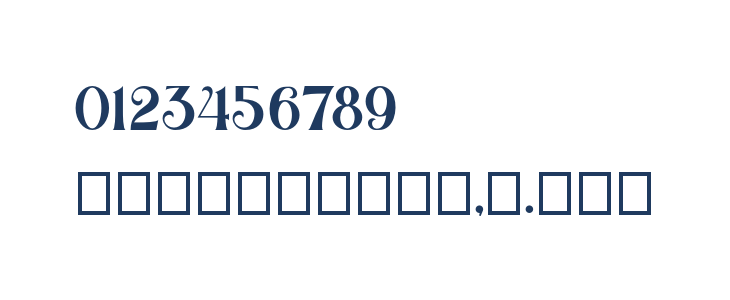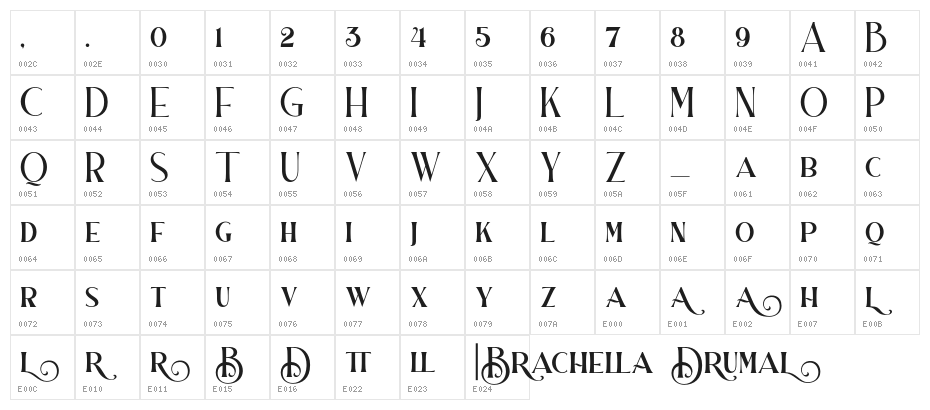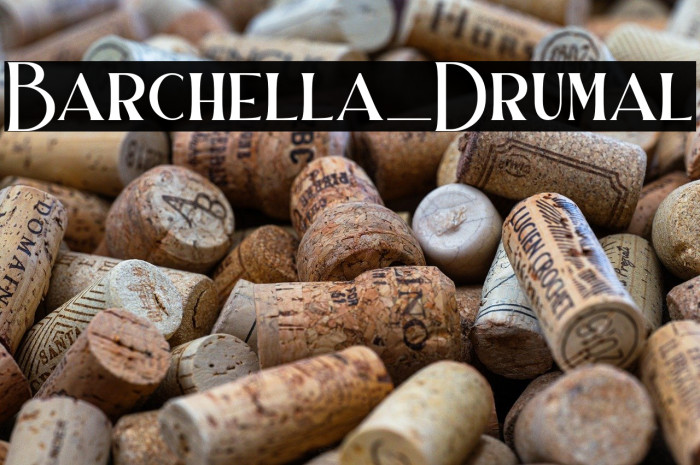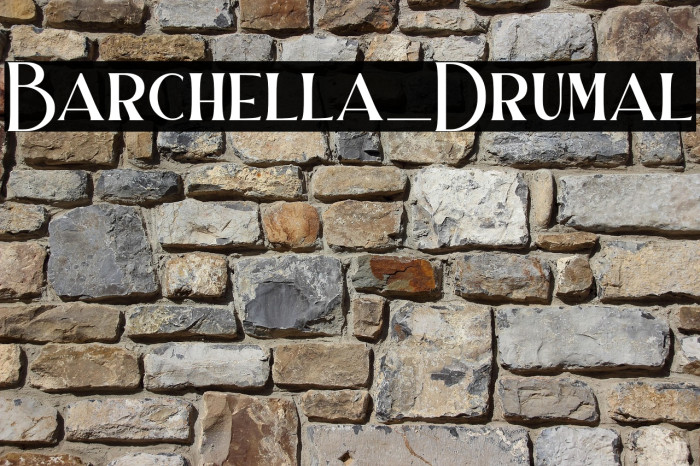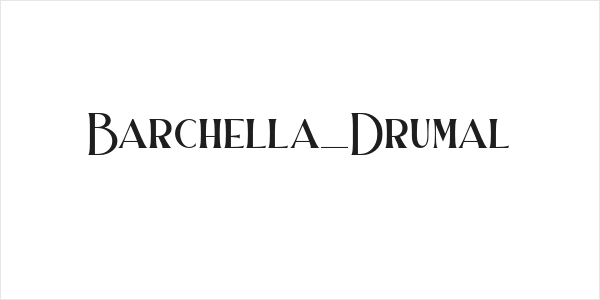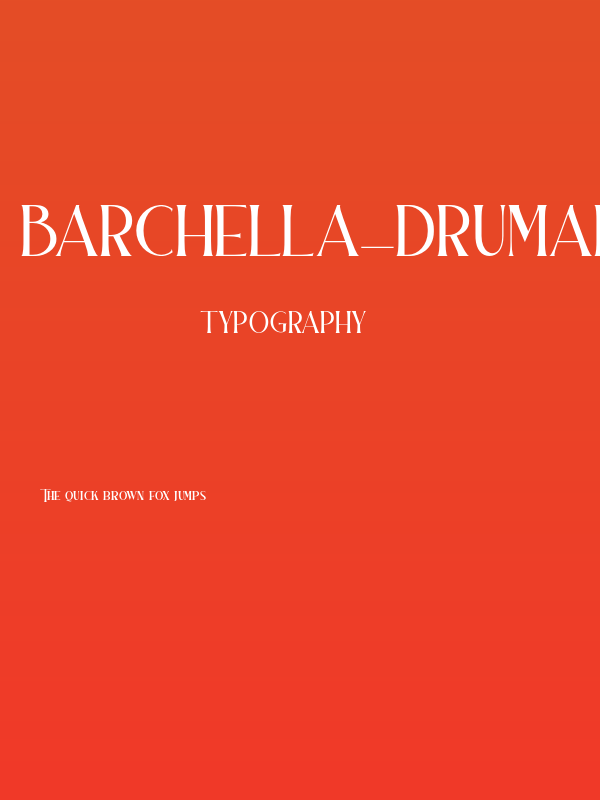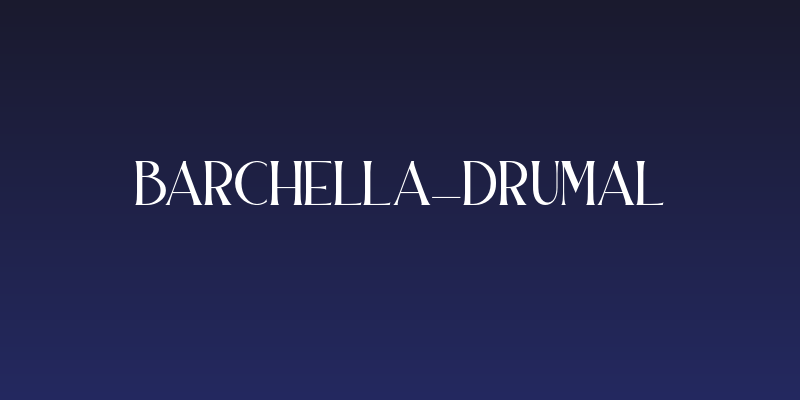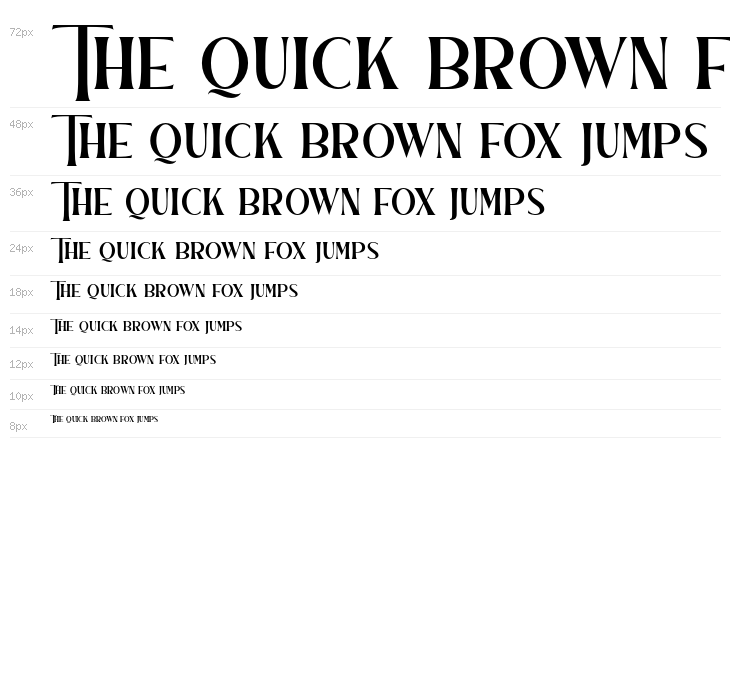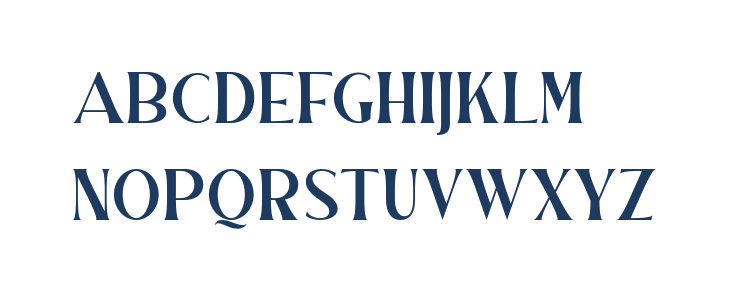
Barchella_Drumal Font
Barchella_Drumal Description
This font features a unique blend of modern and classic elements, characterized by its elegant and slightly elongated letterforms. The uppercase letters exhibit a sophisticated flair with subtle curves and sharp edges, creating a dynamic and stylish appearance. The numerals are distinct and bold, maintaining the font's overall aesthetic. The special characters are well-integrated, complementing the font's design. The font's versatility makes it suitable for a variety of design projects, offering a refined yet contemporary look.
| Use Case | Headlines, Logos, Editorial design |
| Proposed Projects | Ideal for branding, editorial design, and luxury product packaging. |